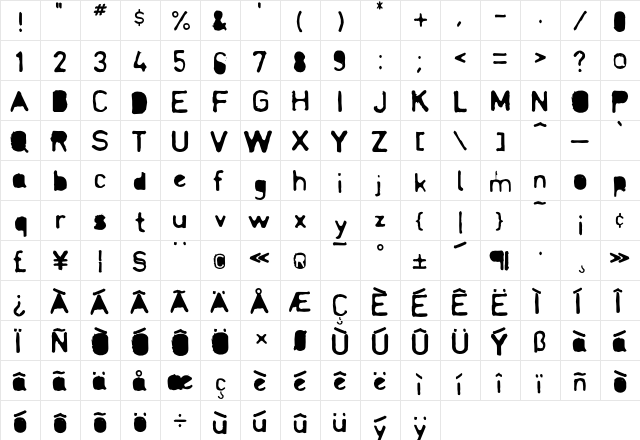
Goblin Regular
Design Context for Goblin Typeface
Goblin is a composed and adaptable typeface that performs quietly and consistently across a wide range of design contexts.